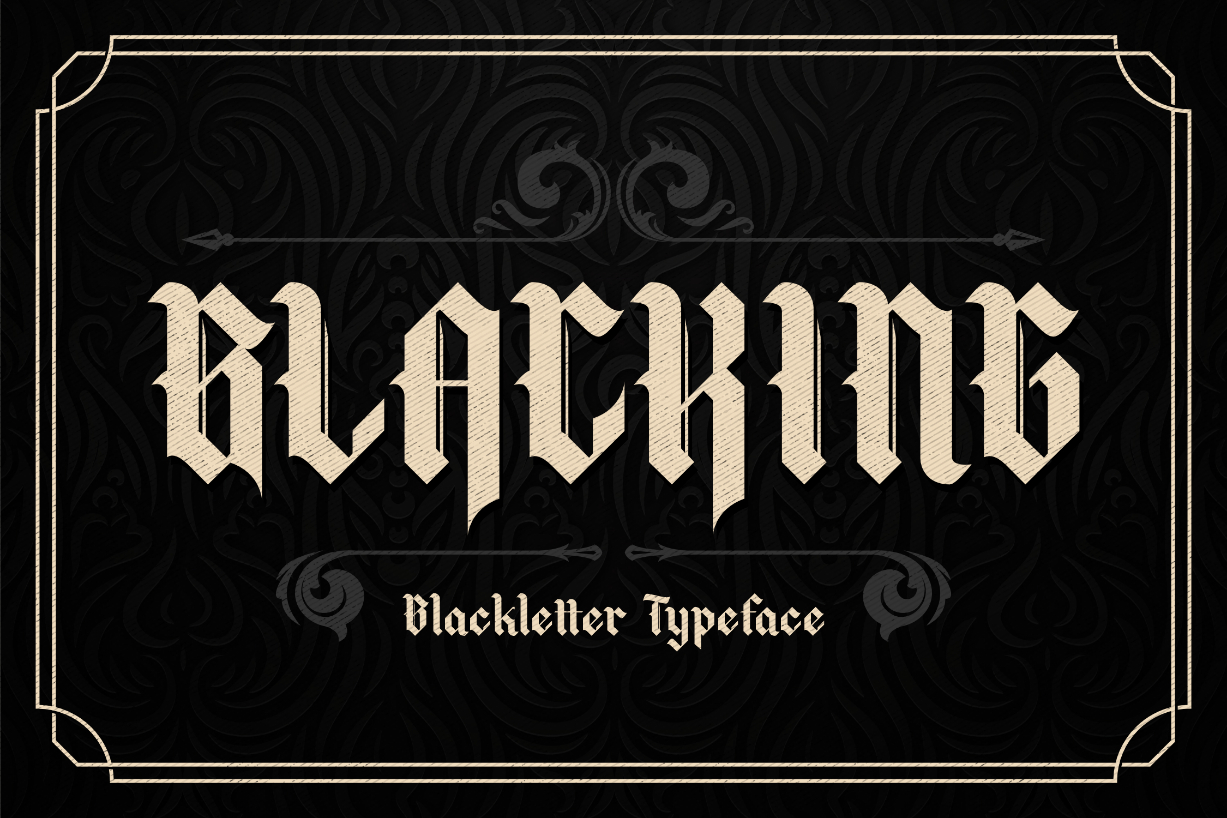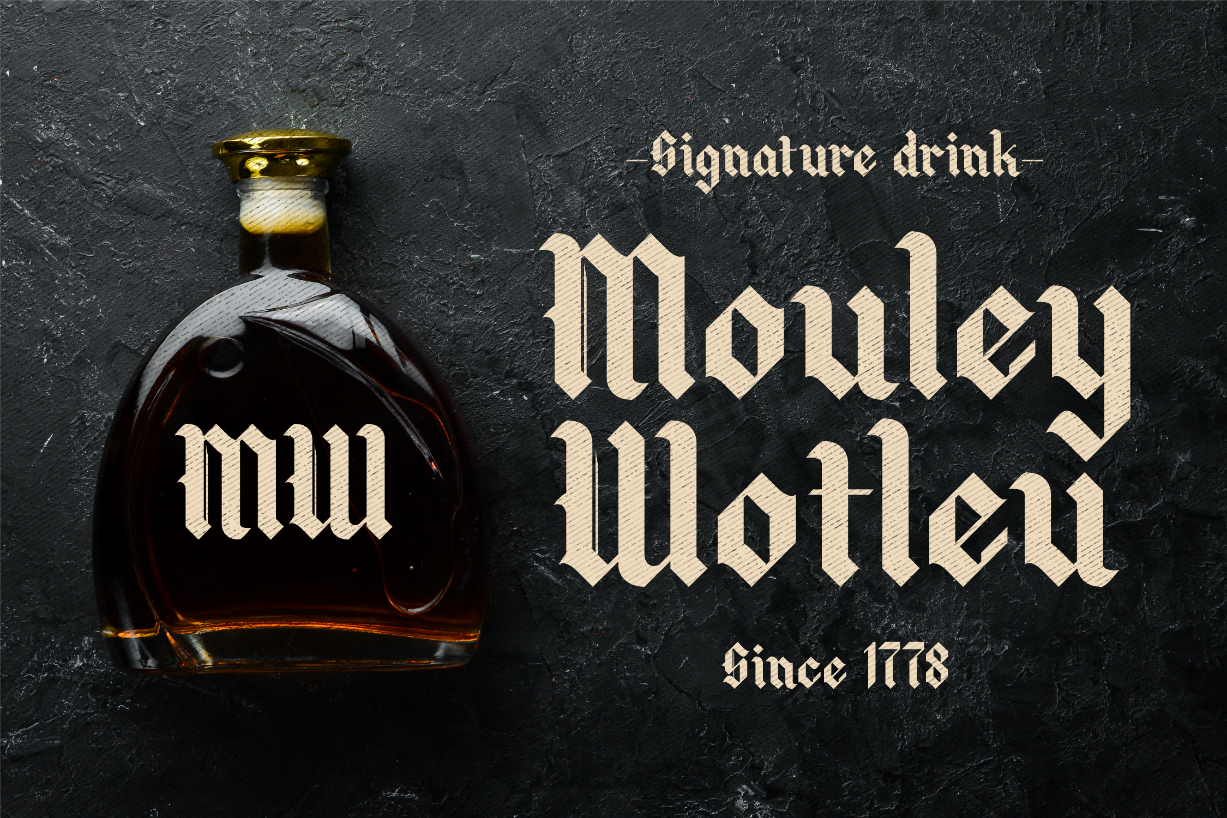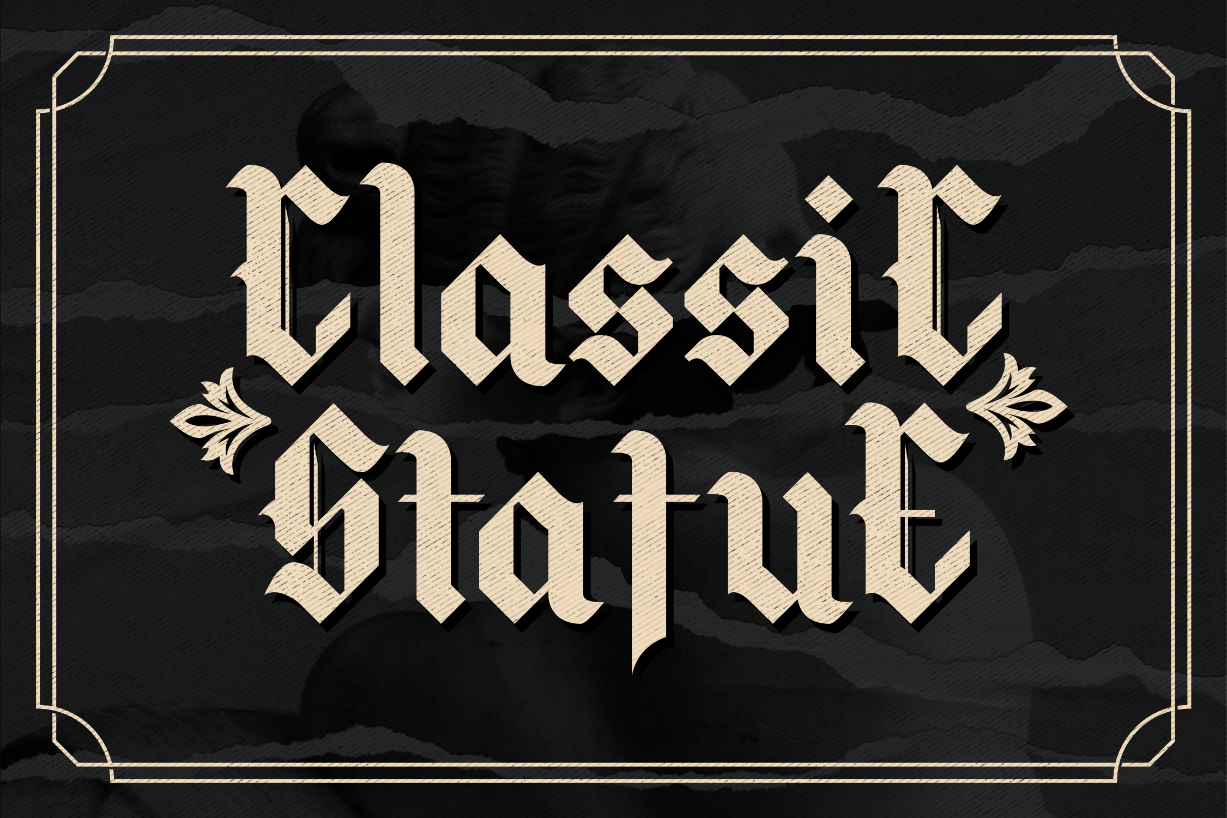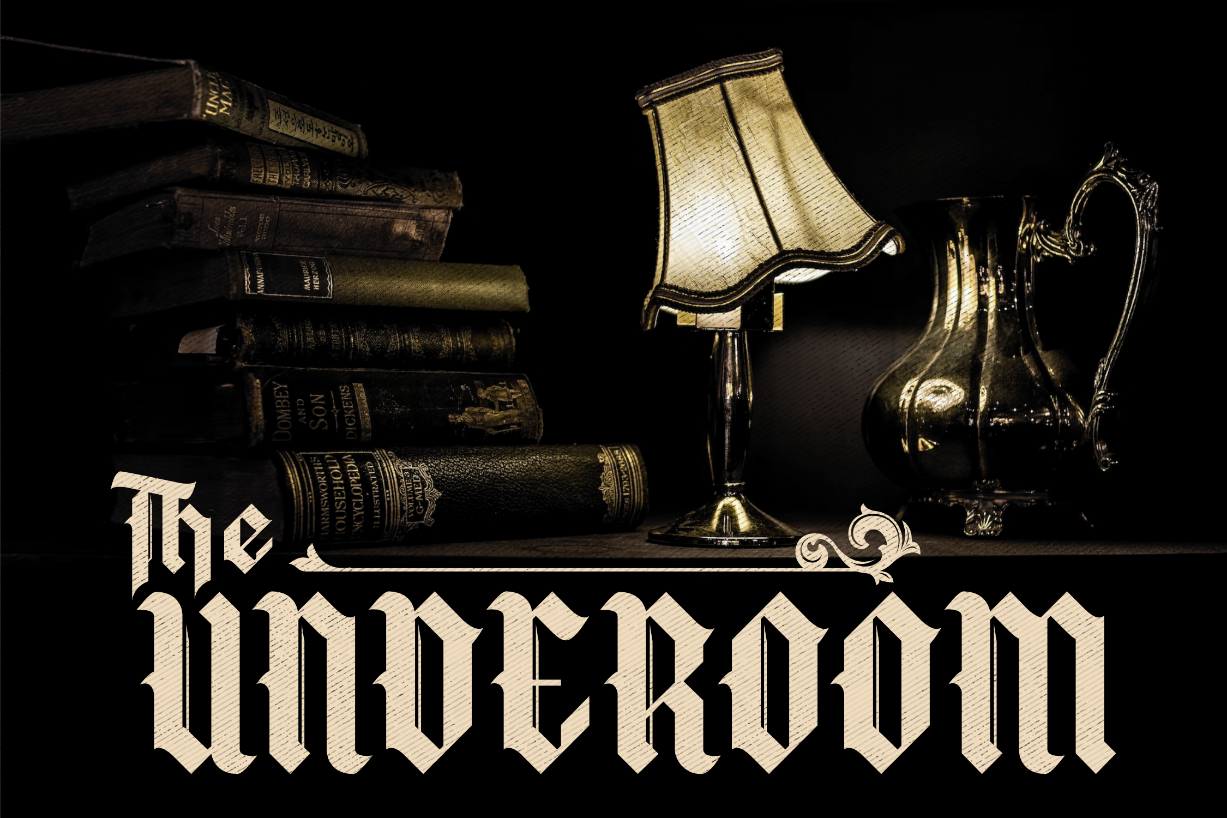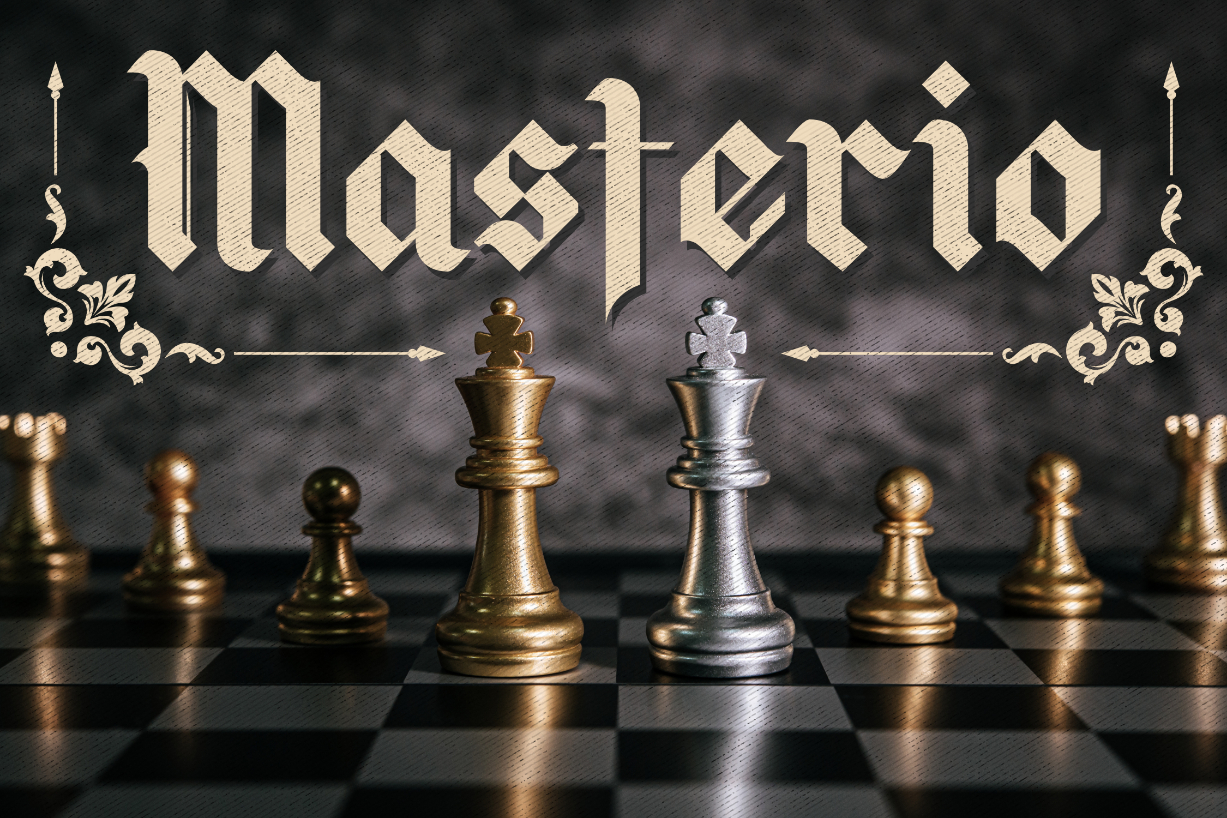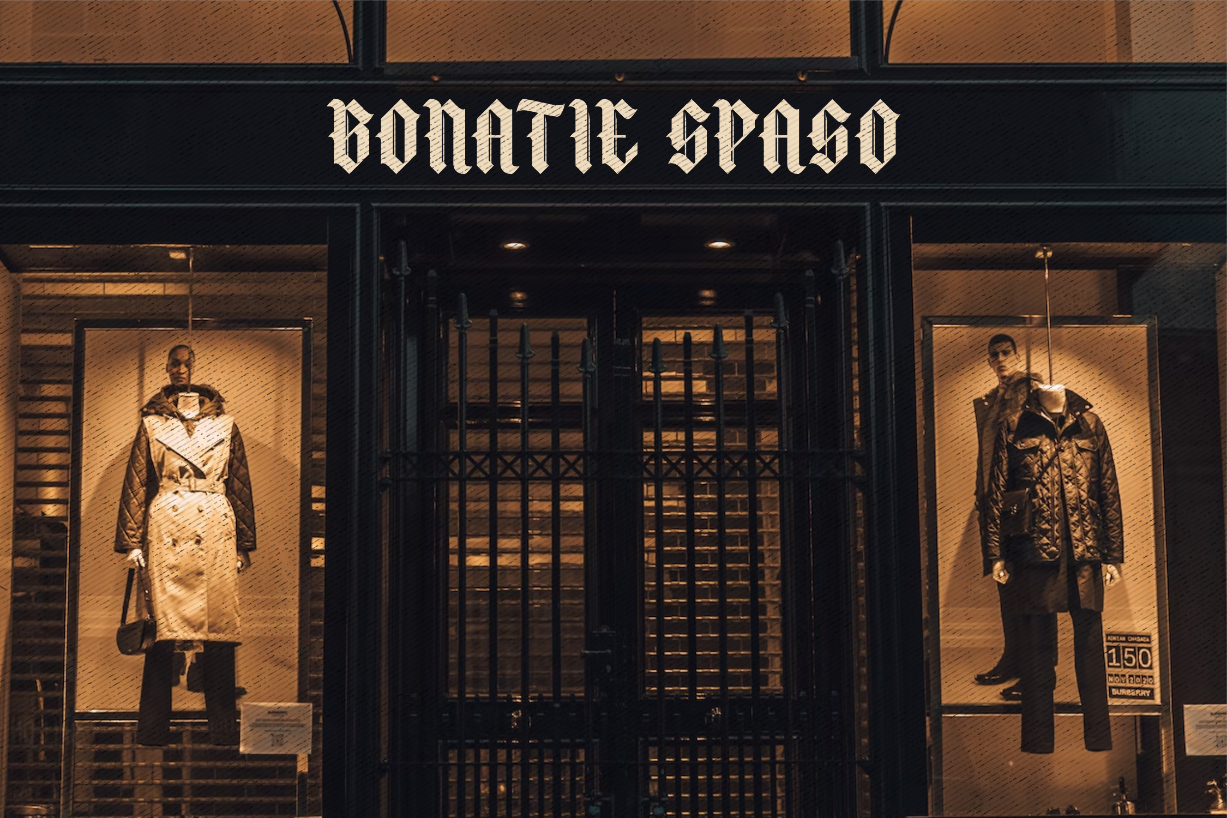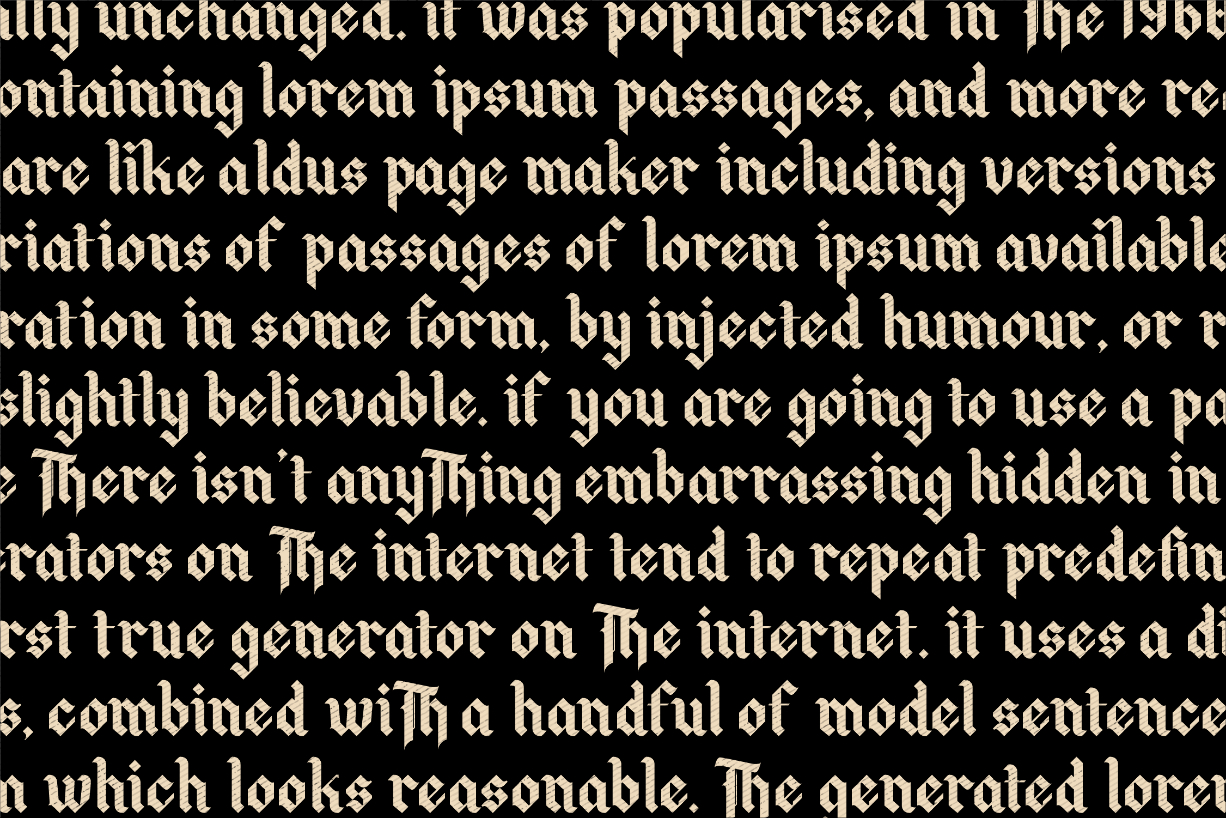
Blacking Font
About Blacking Font
Blacking is a vintage black letter font. Grab this classic and retro typeface and create elegant & luxury logos, book or movie title designs, fashion brands, magazines, clothes, lettering, quotes, and so much more.